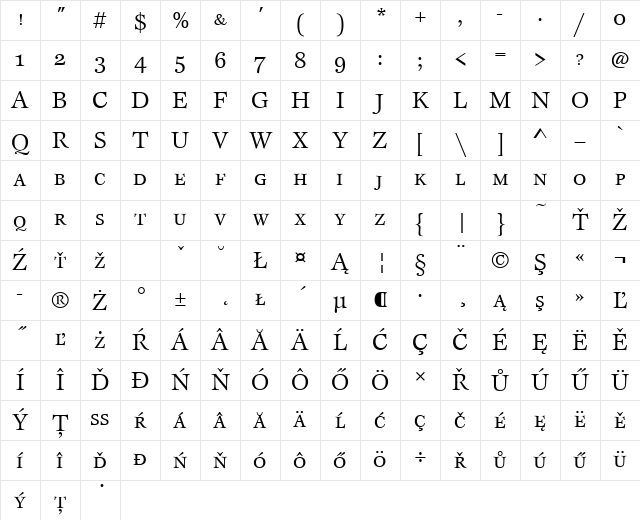
EspritSCItcTEEBoo Regular
Design Context for EspritSCItcTEEBoo
EspritSCItcTEEBoo is a composed and adaptable typeface that performs quietly and consistently across a wide range of design contexts.